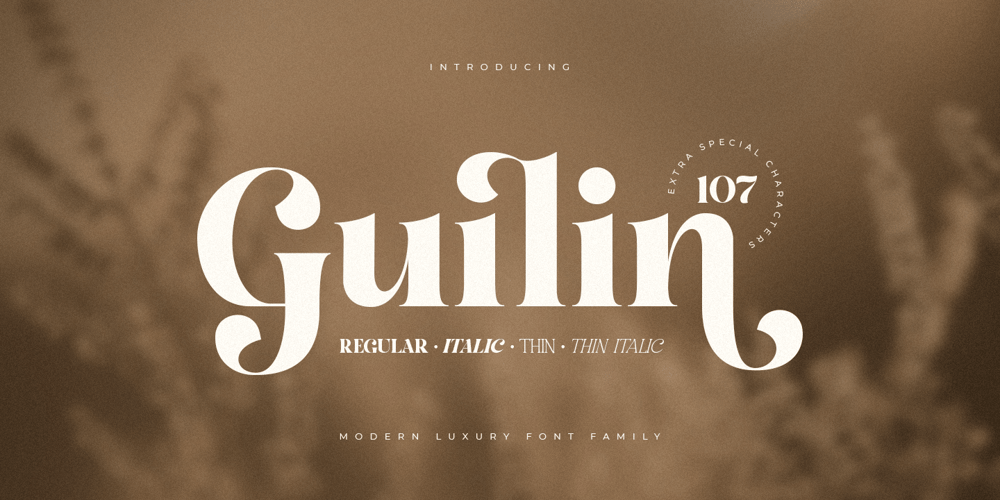
Guilin Font Family was designed by Zamroni Hamzah and published by Sensatype Studio. Guilin contains 4 styles and family package options. A Modern Luxury Font that we created special for elegant branding needs, with extra ligature and alternates in unique shape will be ready to add value of your brand. It so nice to leverage designer or product owner that need solutions to make their design look more classy and modern. And specially for Calista font, We prepared any ligatures, and any alternate characters to help you create unlimited variations for your creative needs.Guilin Modern Luxury Font Family ready with: Any options to get creative variations (combination of Alternate and Ligatures) Ready 4 Weights (Thin, Regular, Thin Italic, Italic) Preview as a inspirations that you can do with Guilin font Ready with Lowercase and Uppercase characters Wish you enjoy our font. 🙂